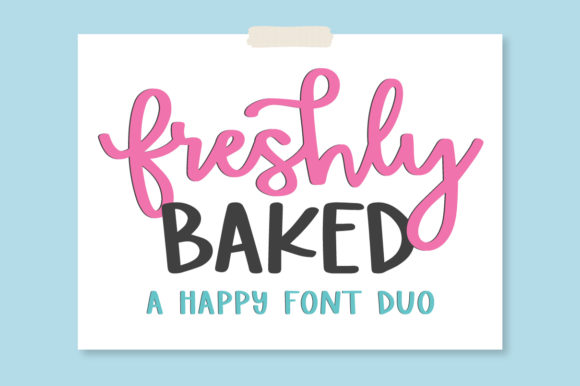
Introducing Freshly Baked Font: The Perfect Duo for Creative Designs
Are you tired of using the same old fonts in your designs? Do you want to add a touch of personality and elegance to your creative projects? Look no further than the Freshly Baked Font duo! This exciting pair of fonts, consisting of a sans serif and a handwritten font, is perfect for designers who want to take their work to the next level.
The Sans Serif Font: Bold and Modern
The sans serif font in the Freshly Baked Font duo is a bold and modern typeface that is sure to make a statement. Its clean lines and geometric shapes give it a sleek and contemporary look that is perfect for designs that require a bit of edge. Whether you’re working on a logo, a brochure, or a website, this font is sure to impress with its confidence and sophistication.
One of the key benefits of the sans serif font is its versatility. It can be used in a variety of contexts, from headlines and titles to body text and captions. Its boldness also makes it perfect for designs that require a bit of drama and flair.
The Handwritten Font: Elegant and Natural
The handwritten font in the Freshly Baked Font duo is a beautiful and elegant typeface that adds a touch of warmth and personality to any design. Its natural, flowing lines give it a organic and human feel that is perfect for designs that require a bit of whimsy and charm.
The handwritten font is perfect for designs that require a bit of elegance and sophistication. Whether you’re working on a wedding invitation, a restaurant menu, or a fashion brand, this font is sure to add a touch of refinement and luxury.
The Benefits of Using the Freshly Baked Font Duo
So why choose the Freshly Baked Font duo over other font combinations? Here are just a few benefits of using this exciting pair of fonts:
- Personality: The Freshly Baked Font duo adds a touch of personality and whimsy to any design, making it perfect for creative projects that require a bit of flair.
- Versatility: The sans serif font is perfect for bold and modern designs, while the handwritten font adds a touch of elegance and sophistication.
- Legibility: Both fonts in the duo are highly legible, making them perfect for use in a variety of contexts, from headlines and titles to body text and captions.
- Uniqueness: The Freshly Baked Font duo is a unique and distinctive font combination that will help your designs stand out from the crowd.
Design Tips for Using the Freshly Baked Font Duo
Here are a few design tips for using the Freshly Baked Font duo:
- Mix and match: Experiment with different combinations of the sans serif and handwritten fonts to create a unique and eye-catching design.
- Use contrast: Use the boldness of the sans serif font to create contrast with the elegance of the handwritten font.
- Keep it simple: Don’t be afraid to keep things simple and use the fonts in a straightforward and uncomplicated way.
- Experiment with colors: Try out different color combinations to add an extra layer of depth and interest to your design.
In conclusion, the Freshly Baked Font duo is a unique and exciting pair of fonts that is perfect for creative designs that require a bit of personality and elegance. With its bold and modern sans serif font and elegant handwritten font, this duo is sure to take your designs to the next level.